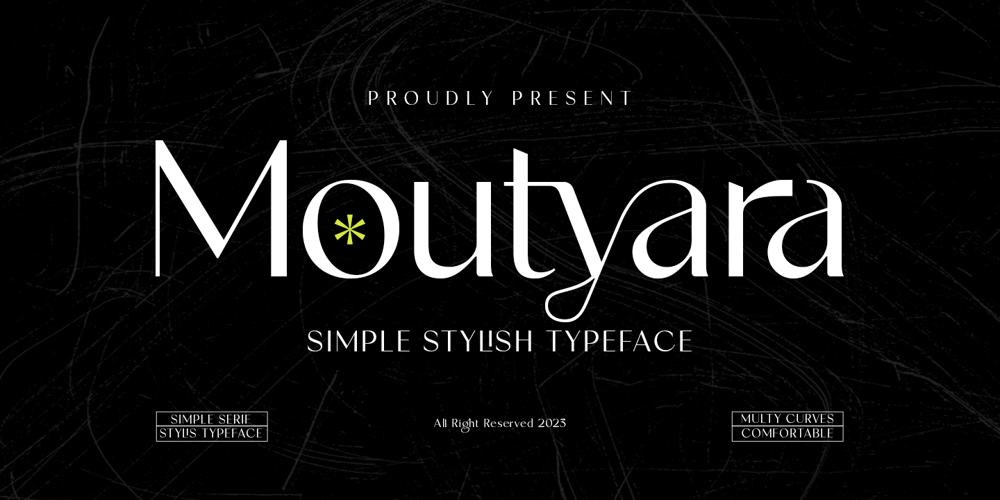
Moutyara Font Family was designed by Zahratul Laila and published by Dora Typefoundry. Moutyara contains 1 styles and family package options. Moutyara โ New Stylish Sans Serif Font with Fancy Curves. A very versatile font that works both large and small. With its angular shape, it is practical while maintaining elegance and boldness. Moutyara is perfect for logo design, magazine headlines, product packaging, branding projects, social media posts, advertisements, invitations, labels or whatever project you’re working on. Create something beautiful today with Moutyara.Features:- All Caps Font with different uppercase and lowercase- Number & Symbol- Supported Languages- Alternates and Ligatures- PUA EncodedWhat is included:- Moutyara Regular (otf-ttf)We highly recommend using a program that supports OpenType features and Glyphs panels like Adobe apps and Corel Draw, so you can see and access all Glyph variations.This type of family has become the work of true love, making it as easy and fun as possible.I really hope you enjoy it!Thank you Enjoy the font and go get creative ๐